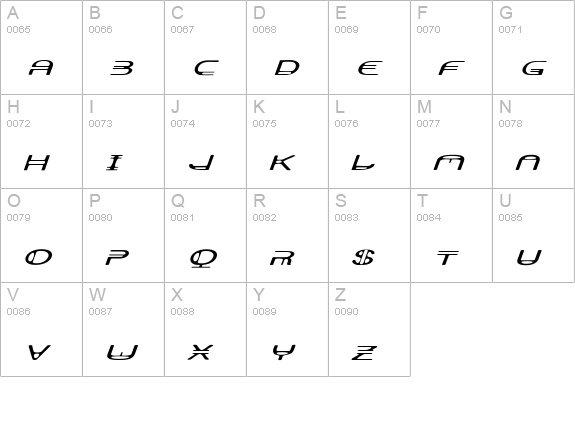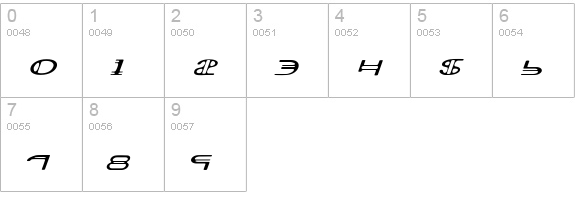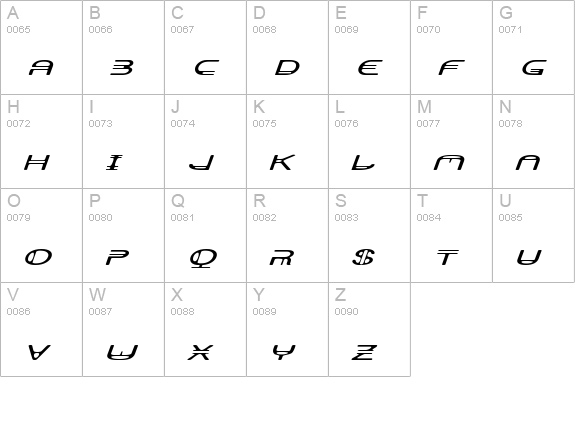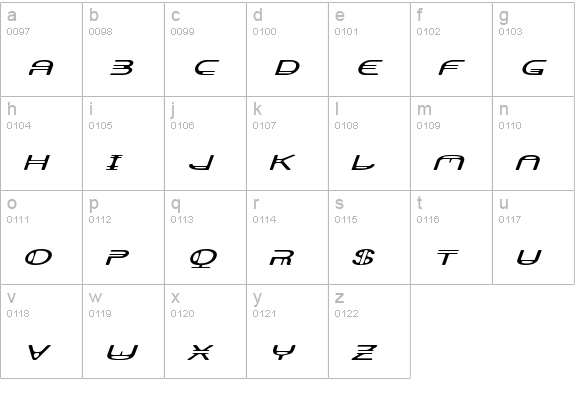
AeratorObliqueA Font Details
AeratorObliqueA is a modern and stylish font that brings a touch of sophistication to any design project. Its oblique style adds a dynamic and energetic flair, making it perfect for use in headings, logos, and other prominent design elements. The sleek, aerodynamic lines of AeratorObliqueA give it a unique and eye-catching appeal that is sure to make your designs stand out. Best of all, AeratorObliqueA is completely free to download at FontsMarket.com. This means you can easily add this versatile and elegant font to your collection without breaking the bank. Whether you're a seasoned designer looking for a fresh new typeface or a beginner looking to experiment with different fonts, AeratorObliqueA is a fantastic choice that won't cost you a dime. Download it today and elevate your design projects with this stunning and free font.